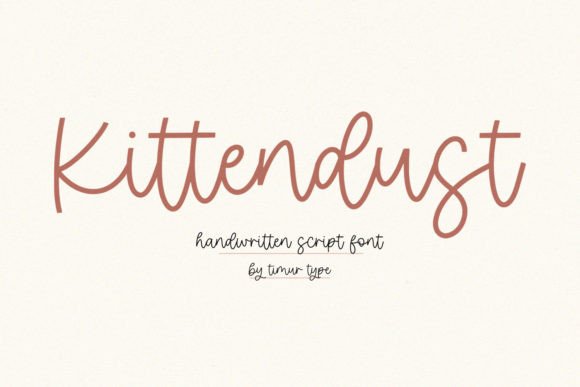
Step into a world of enchanting elegance with Kittendust Font, a captivating handwritten font that will transform your creative endeavors into masterpieces. Its graceful curves and enchanting charm will ignite your imagination and elevate your projects to new heights.
Immerse yourself in the alluring embrace of Kittendust, where form and function dance harmoniously. Each letter is meticulously crafted to exude a touch of whimsy and sophistication, making it the perfect choice for invitations, wedding stationery, and any occasion that demands a touch of unparalleled beauty.
Indulge in the countless possibilities that Kittendust unlocks. Its versatility allows you to effortlessly create captivating designs that resonate with your unique style. Whether you're a seasoned designer or just starting your creative journey, Kittendust will be your loyal companion, guiding you towards extraordinary outcomes.
Feel the inspiration flow effortlessly as you witness Kittendust's ability to transform ordinary words into works of art. Its timeless elegance will add a touch of magic to your invitations, making every moment unforgettable. Let Kittendust be the enchanting touch that sets your projects apart, leaving an everlasting impression on all who behold them.
Embrace Kittendust Font today and embark on a creative adventure where imagination knows no bounds. Its enchanting allure and boundless versatility will ignite your passion and empower you to create designs that captivate and inspire. Immerse yourself in a world of boundless creativity with Kittendust Font, where your imagination takes center stage.